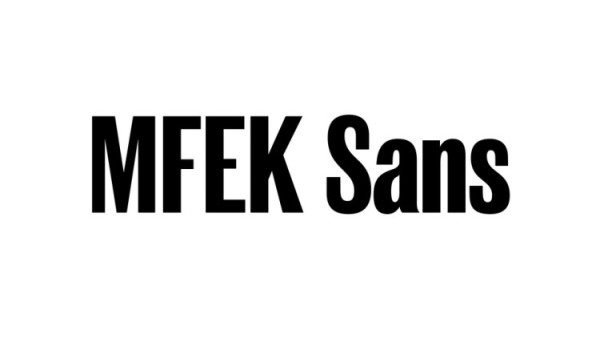
MFEK Sans Font, is an original typeface inspired by Wooden Type from the mid to late 1800s. MFEK Sans font is designed to be highly versatile while also being highly expressive. This is accomplished by designing it from the start to accommodate a large range of weights and styles. Many historical wooden typefaces from the 1800s were referenced with design elements being drawn from many different families based off of their utility, and their historical character.
MFEK Sans was commissioned by the Modular Font Editor K Foundation.